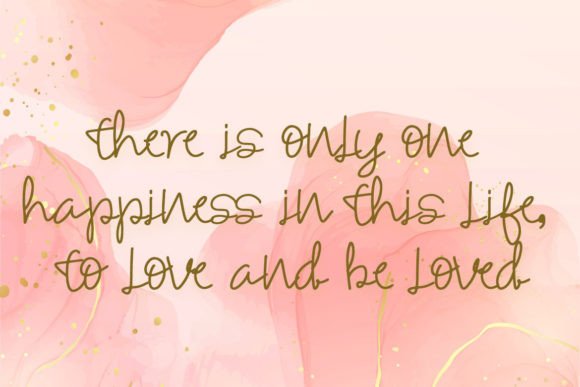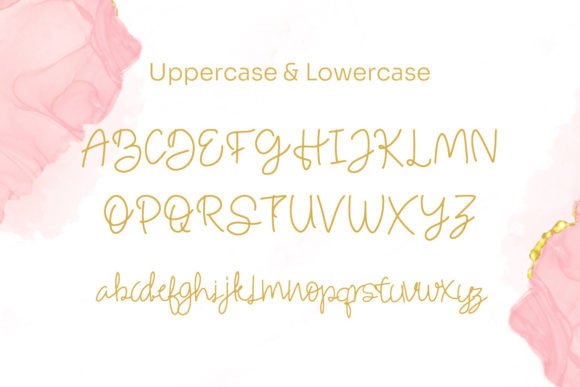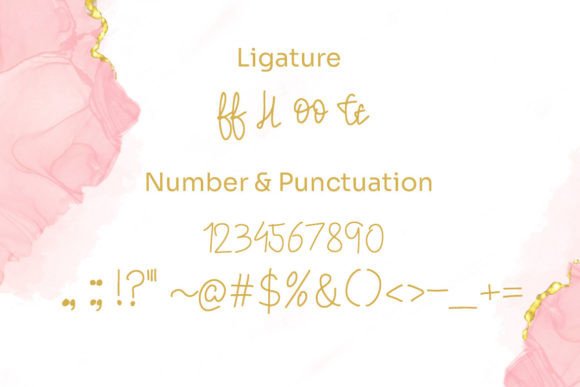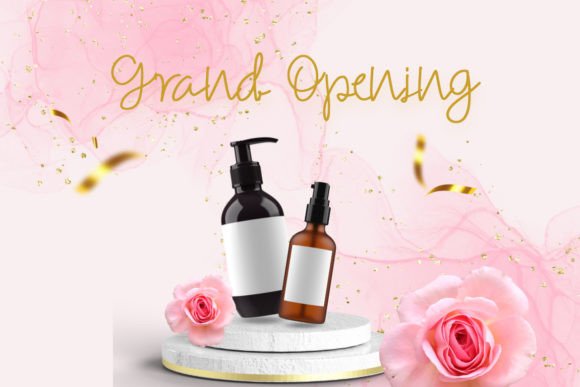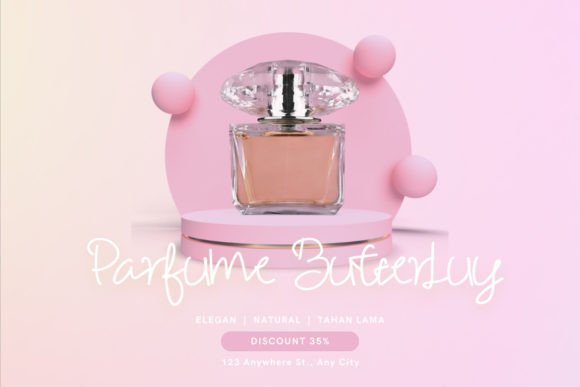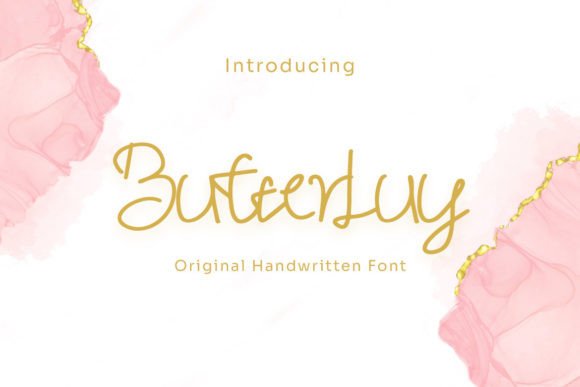
Introducing Butterluy Font: The Playful and Whimsical Choice for Your Designs
Are you tired of using the same old fonts for your designs? Look no further! We’re excited to introduce the delightful “Butterluy” font, a playful and whimsical typeface that’s sure to add a touch of fun to any project. With its delicate and bouncy curves, Butterluy exudes a carefree and cheerful vibe that’s perfect for designers and crafters looking to create something unique and eye-catching.
The Perfect Blend of Elegance and Playfulness
Butterluy font is a masterful blend of elegance and playfulness, making it the ideal choice for a wide range of design projects. Its elegant style is perfect for creating sophisticated invitations, greeting cards, and logos, while its playful curves add a touch of whimsy and fun. Whether you’re designing a wedding invitation, a children’s party flyer, or a brand logo, Butterluy font is the perfect choice.
Key Features of Butterluy Font
• Delicate and Bouncy Curves: Butterluy font features delicate and bouncy curves that give it a carefree and cheerful vibe.
• Elegant yet Playful Style: This font combines elegance and playfulness, making it perfect for a wide range of design projects.
• Versatile: Butterluy font is versatile and can be used for invitations, greeting cards, logos, and more.
• Unique and Eye-Catching: With its unique and eye-catching design, Butterluy font is sure to make your designs stand out.
Why Choose Butterluy Font?
So, why choose Butterluy font for your designs? Here are just a few reasons:
• Adds a Touch of Fun: Butterluy font adds a touch of fun and whimsy to any design project.
• Perfect for Creative Projects: This font is perfect for creative projects, such as invitations, greeting cards, and logos.
• Easy to Read: Despite its playful curves, Butterluy font is easy to read and understand.
• Great for Branding: With its unique and eye-catching design, Butterluy font is great for branding and can help you establish a strong visual identity.
How to Use Butterluy Font in Your Designs
Using Butterluy font in your designs is easy! Here are a few tips:
• Pair it with Other Fonts: Pair Butterluy font with other fonts to create a unique and eye-catching design.
• Experiment with Colors: Experiment with different colors to find the perfect combination for your design.
• Use it for Headings and Titles: Use Butterluy font for headings and titles to add a touch of fun and whimsy to your design.
• Make it Your Own: Don’t be afraid to get creative and make Butterluy font your own by adjusting the size, style, and layout.
In conclusion, Butterluy font is a playful and whimsical typeface that’s perfect for designers and crafters looking to add a touch of fun to their designs. With its delicate and bouncy curves, elegant yet playful style, and versatility, Butterluy font is the ideal choice for a wide range of design projects. So why not give it a try and see how it can elevate your designs?